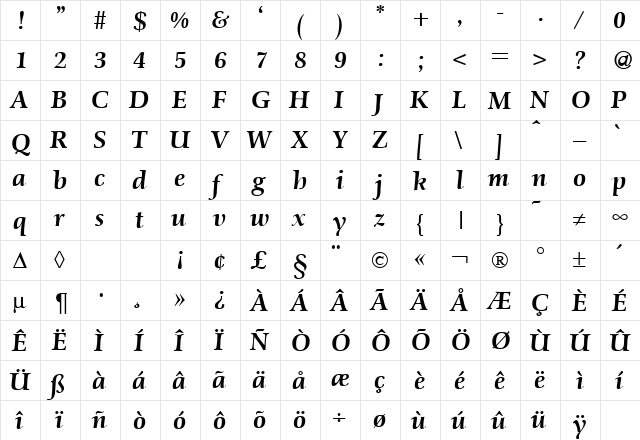
Scenic BoldItalic
Design Context for Scenic Typeface
Scenic offers clean, dependable letterforms without strong stylistic allegiance, making it a practical choice for designers who need flexibility. The slanted form adds forward momentum and visual energy. Its bold stroke weight gives it real presence on the page.
Pro Tip: Try Scenic for annotation and caption copy alongside an upright companion — the contrast in angle creates a dynamic but ordered typographic system.